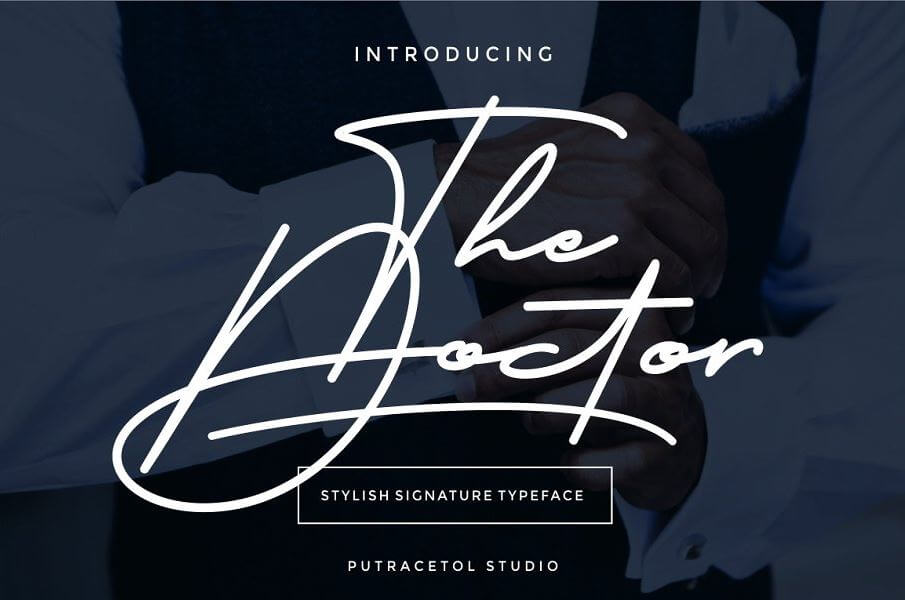
The Doctor Signature Font is essential for anyone looking for a signature script that resembles theĀ napo font. It includes a variety of alternate characters that can be used across multiple projects. This handwritten font features a classic, elegant, and stylish design.
The surgeon pleasant makes use of for signature, heading, cover, branding, invitation, label, poster, trademarks, costs, product packaging, header, merchandise, social media & greeting cards, and many extras.